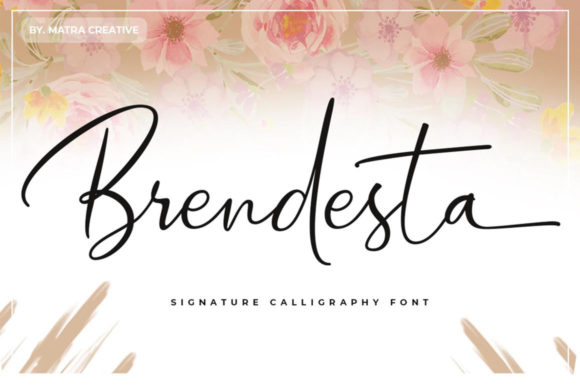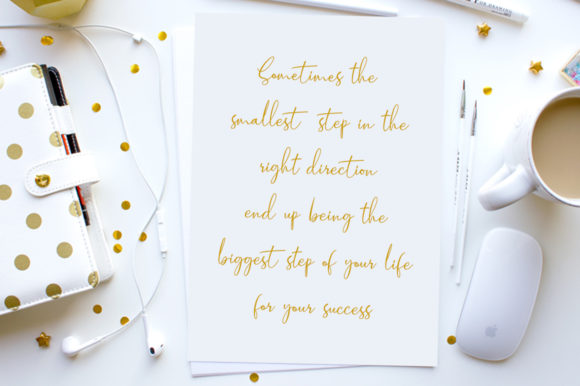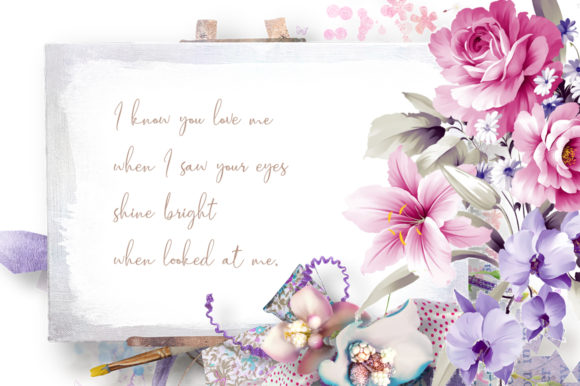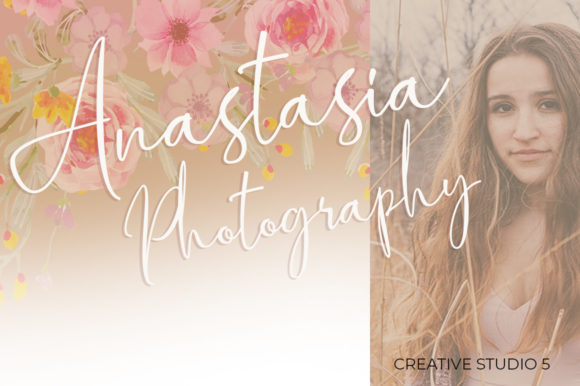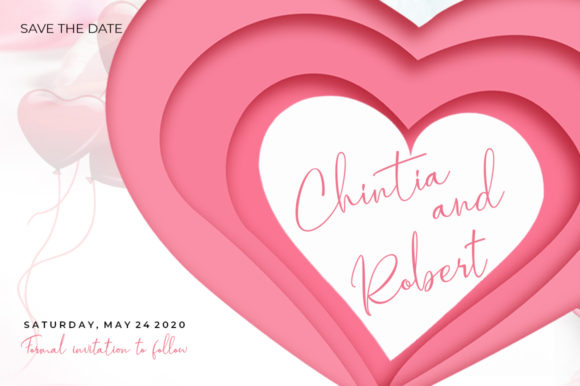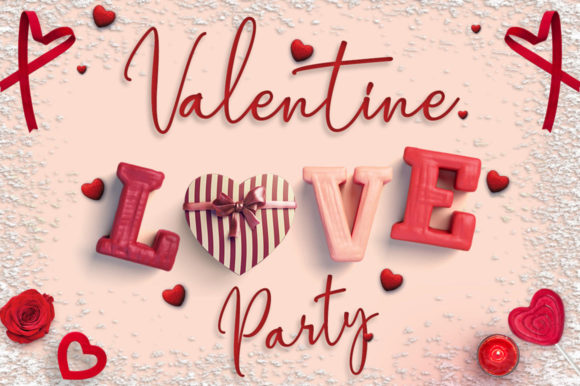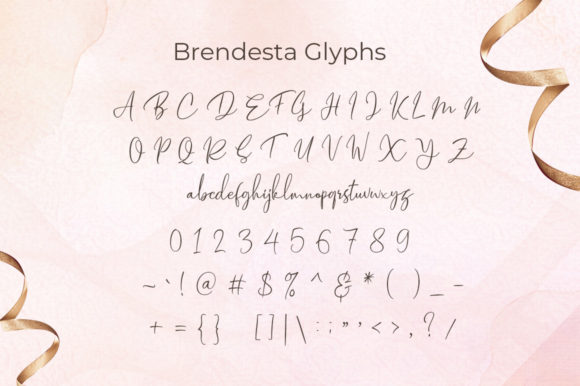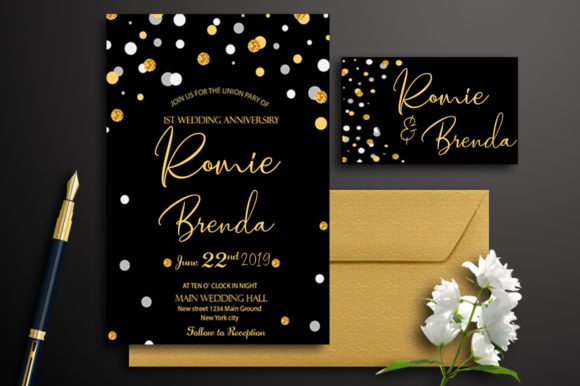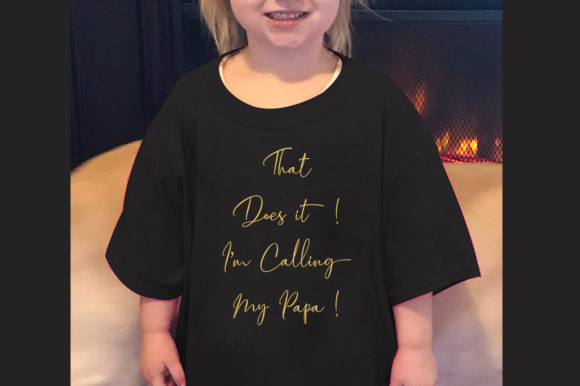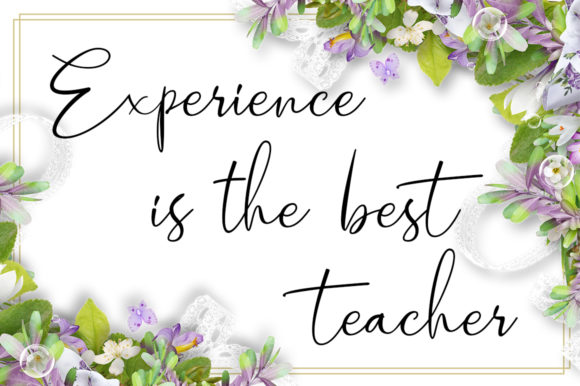
Brendesta Font
About Brendesta Font
The Brendesta is a distinctive signature font with which you can achieve a feeling of handwriting. This type of handwriting can be used for social media content, for branding or packaging, organic products, and much more!